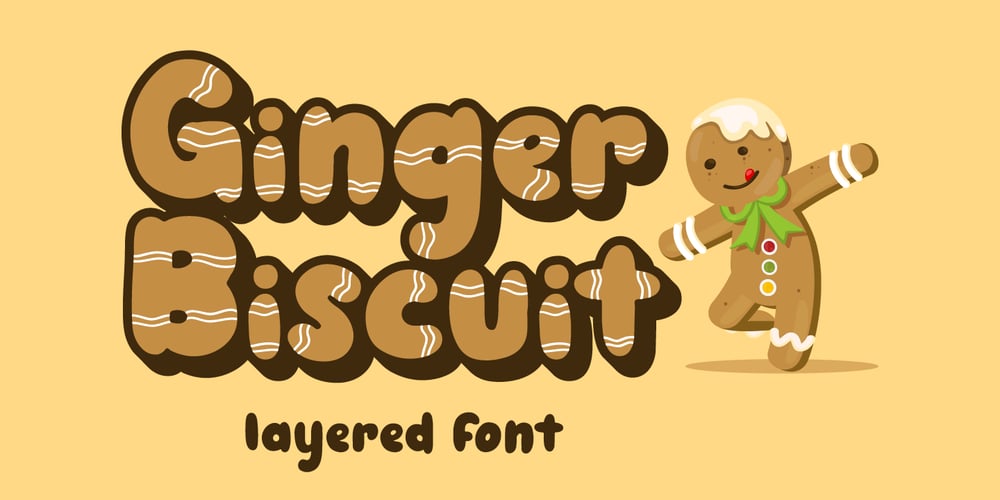
Ginger Biscuit Font Family was designed by Fadli Ramadhan Iskandar and published by Attype Studio. Ginger Biscuit contains 3 styles and family package options. Introducing Ginger Biscuit – Inspired by winter snack Gingerbread man, Ginger Biscuit is christmas font.perfect for making merry christmas images for card & super easy to use for 3D effect using Ginger Biscuit font, make combination of this font to create amazing design!Three style Font: Handwritten, Display & ExtrudeGinger Biscuit is perfect for children product, branding, logo, invitation, stationery, product packaging, merchandise, monogram,blog design, game titles, cute style design, Book/Cover Title and more.Features :- Ginger Biscuit.otf- Ginger Biscuit Extrude.otf- Ginger Biscuit Display.otf- Multilingual Support —Hope you enjoy with our font!Attype Studio